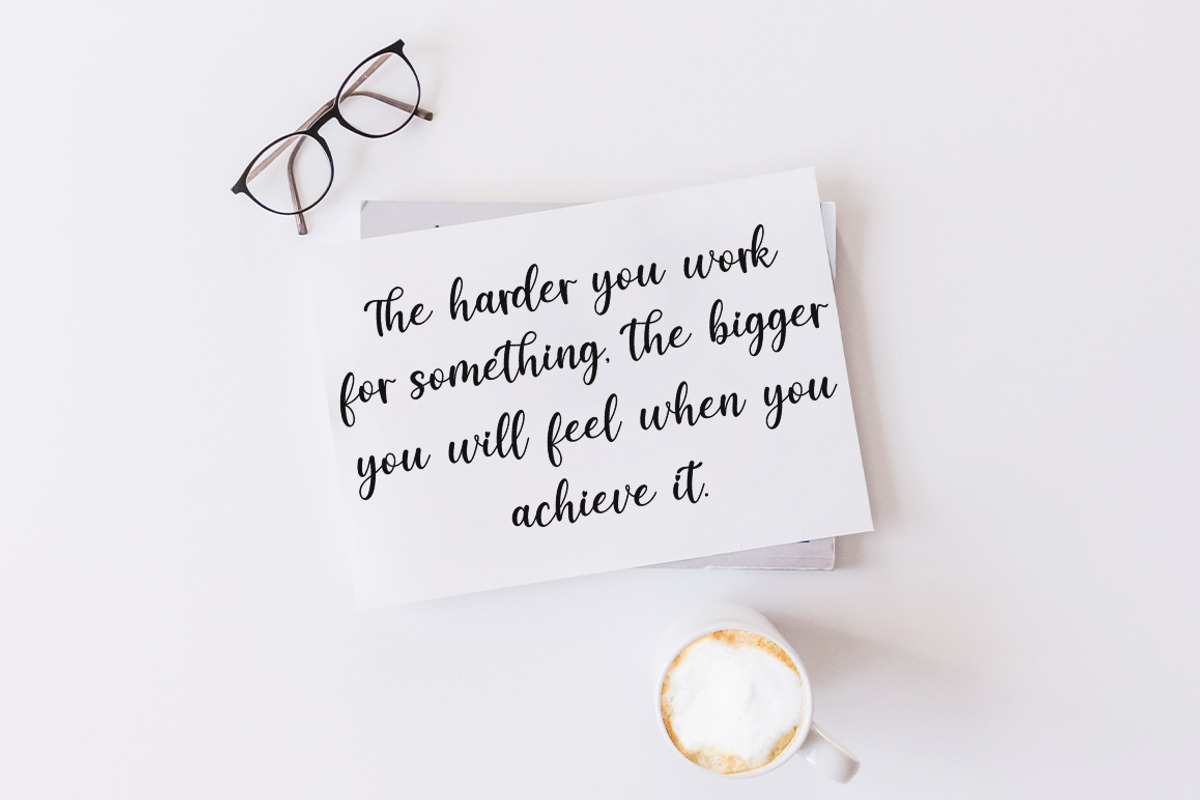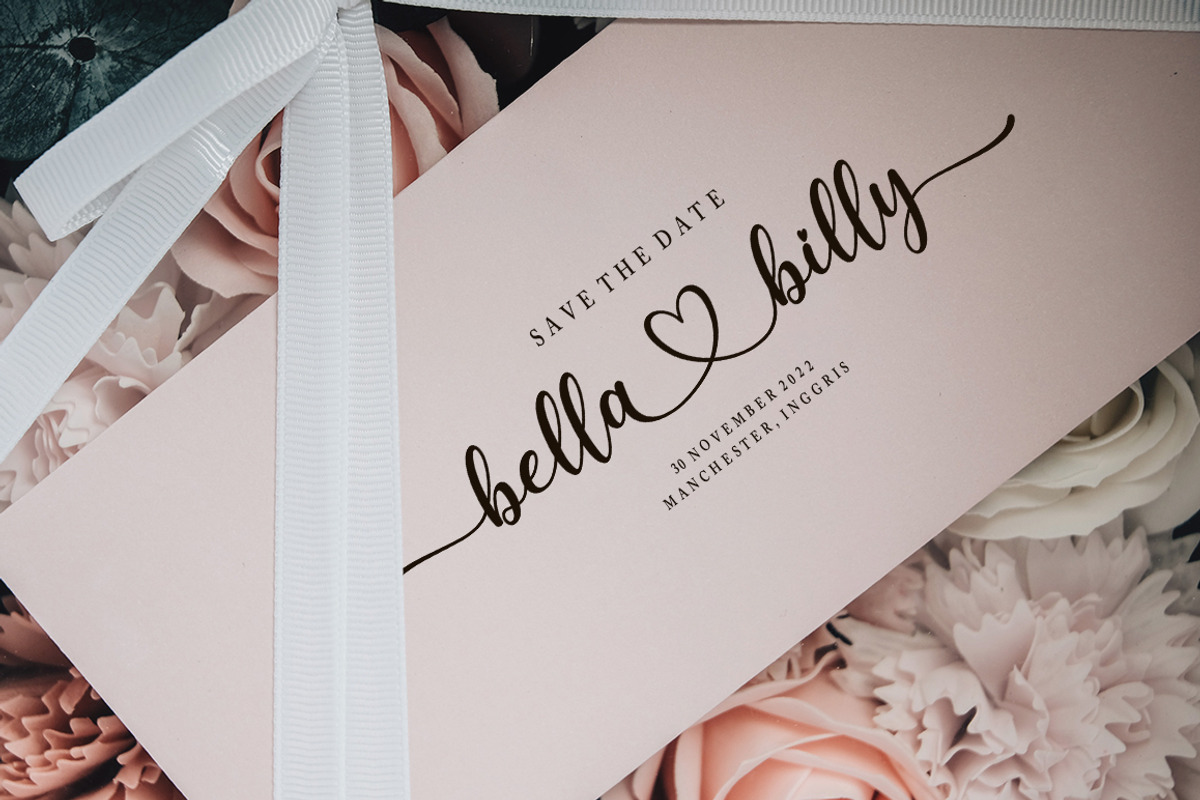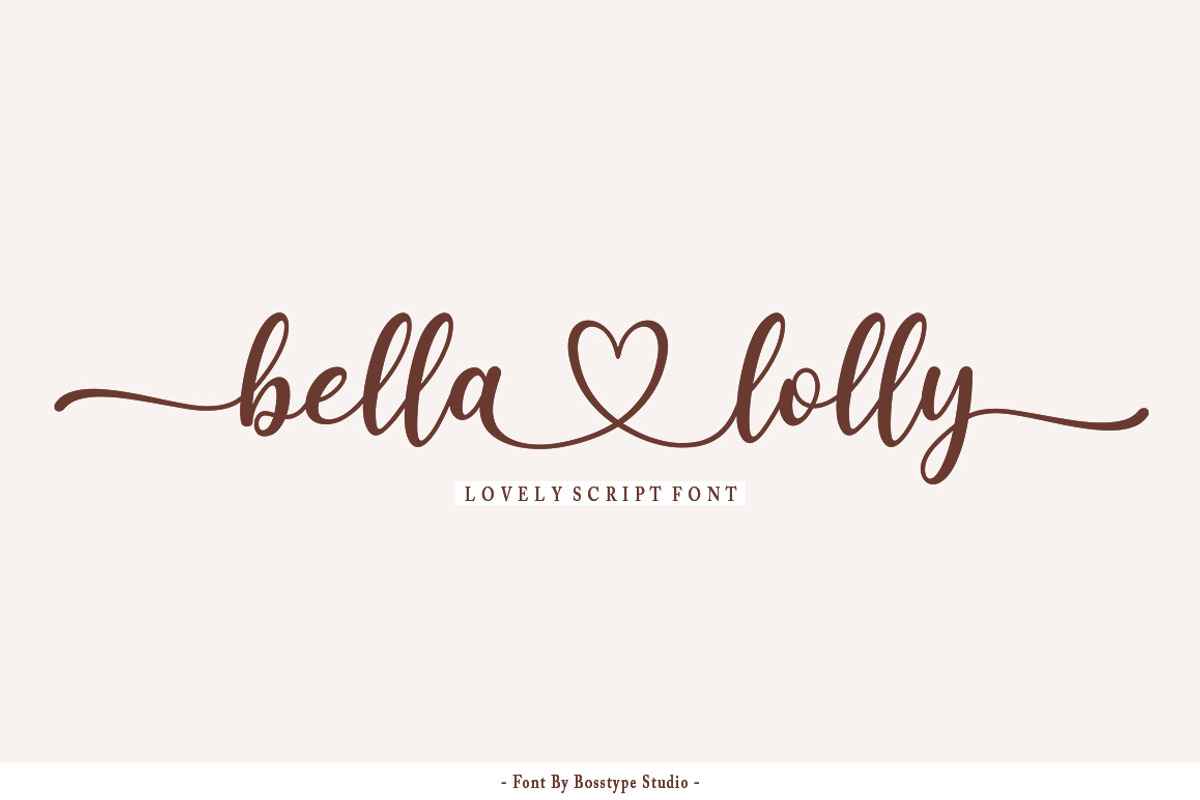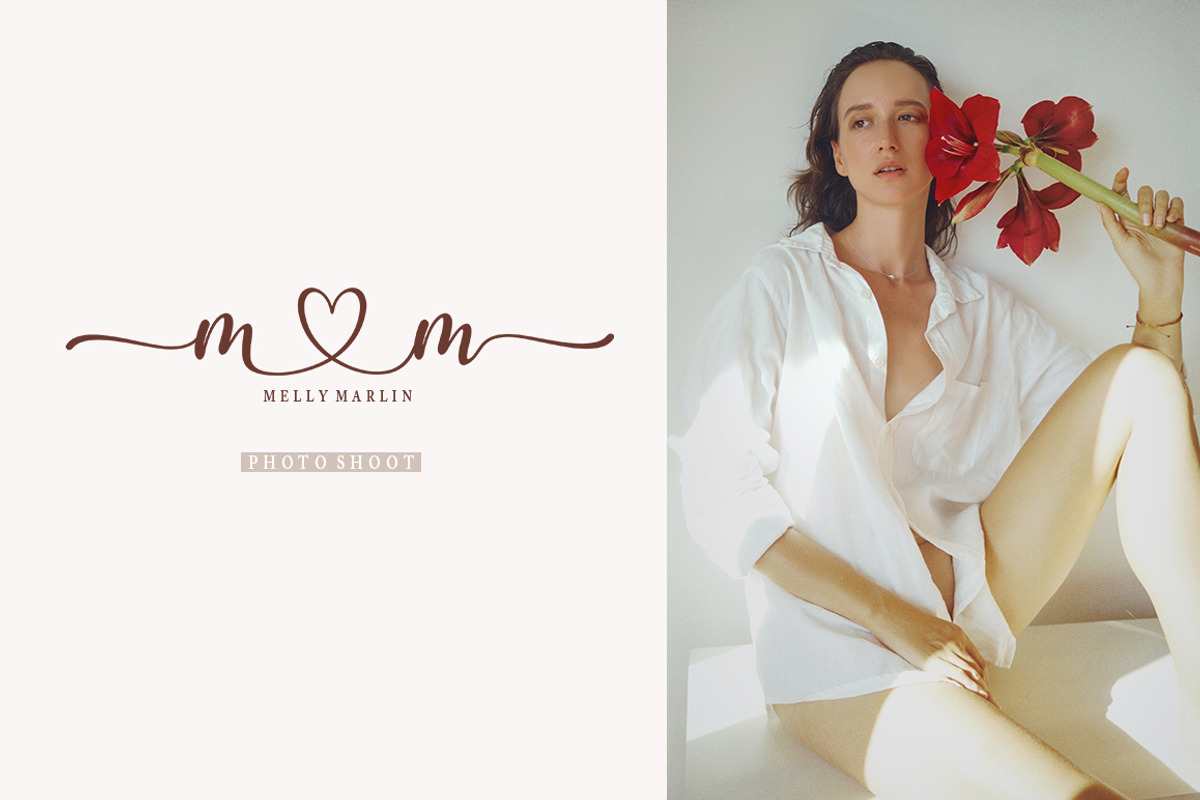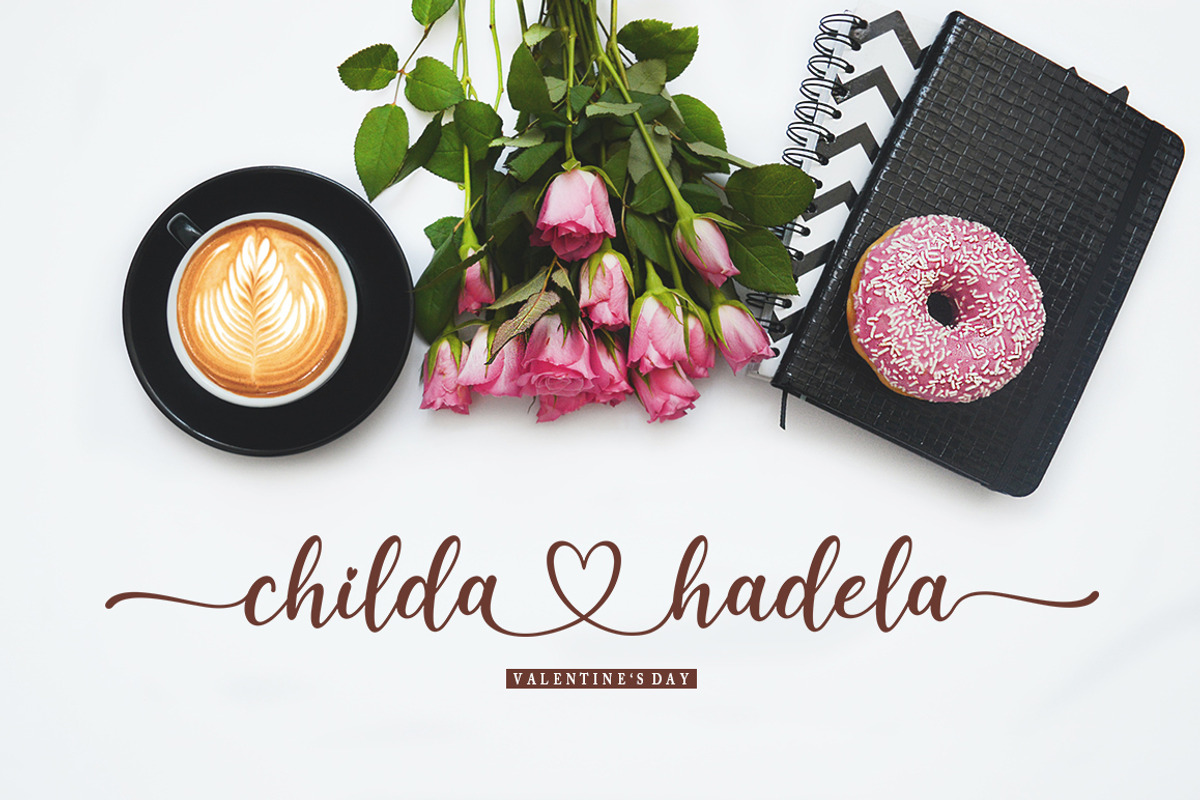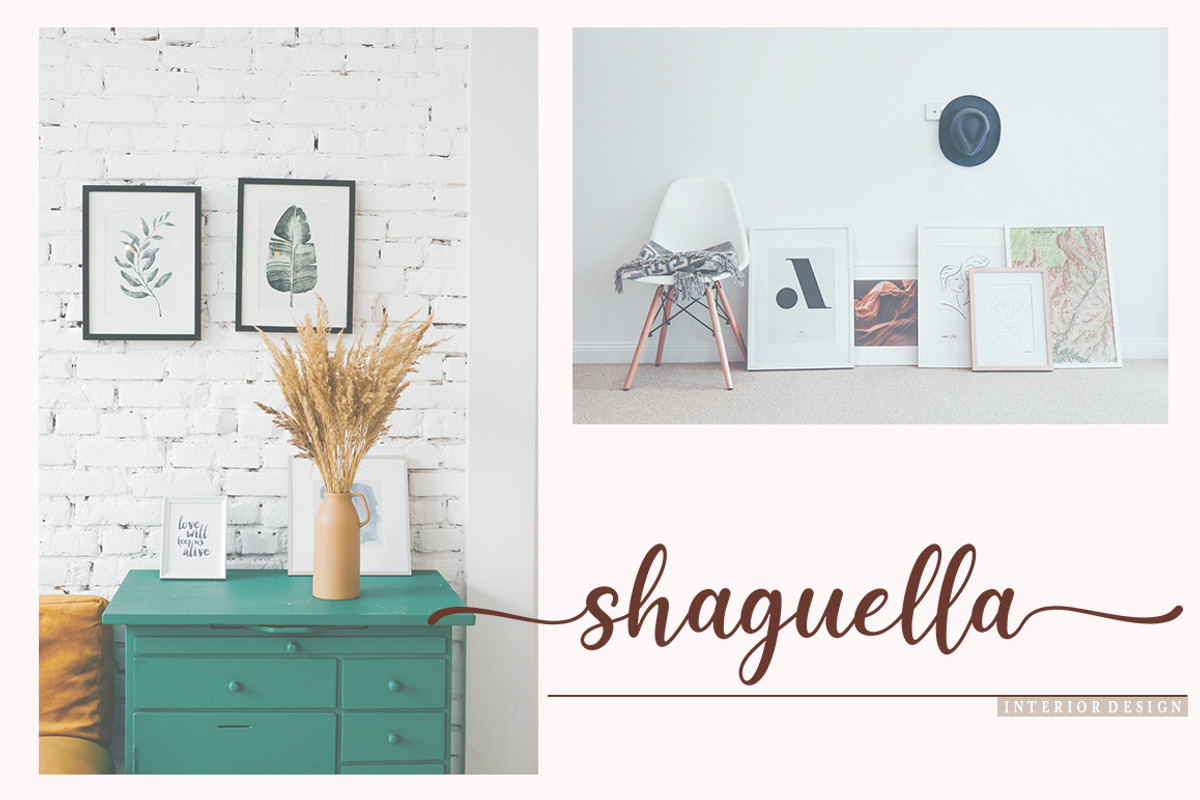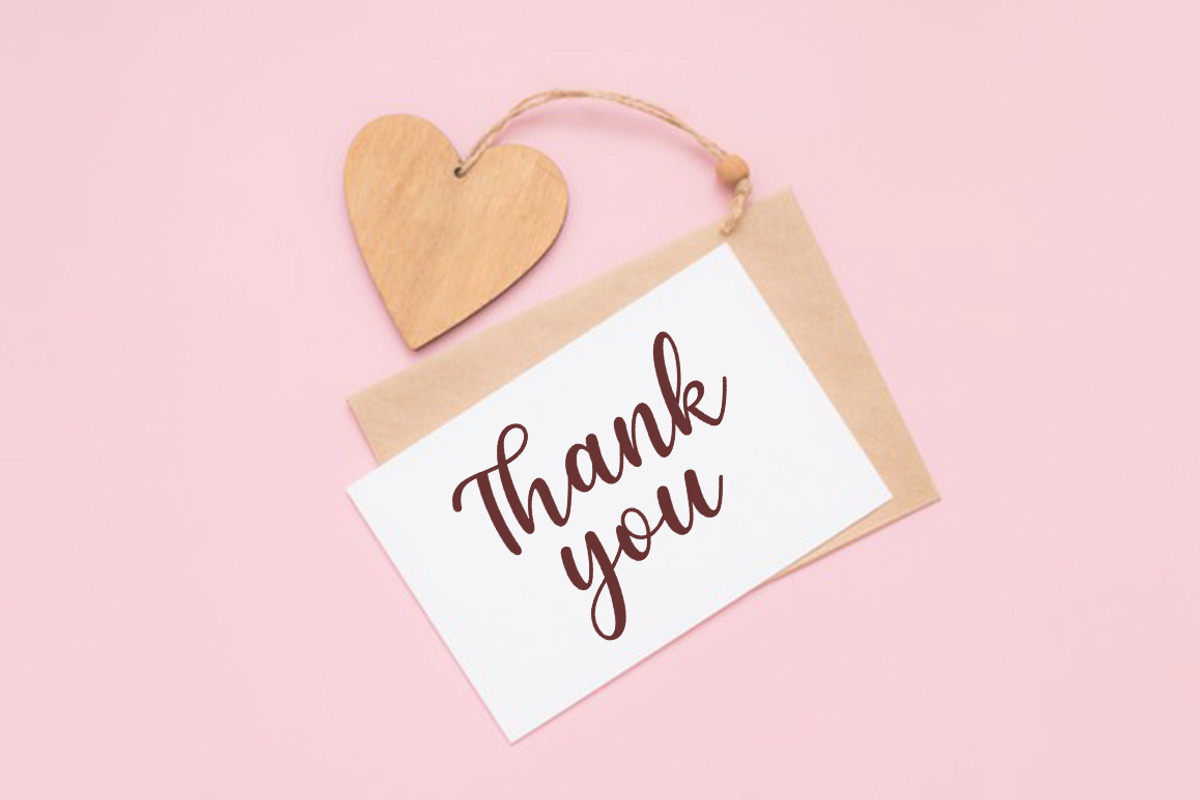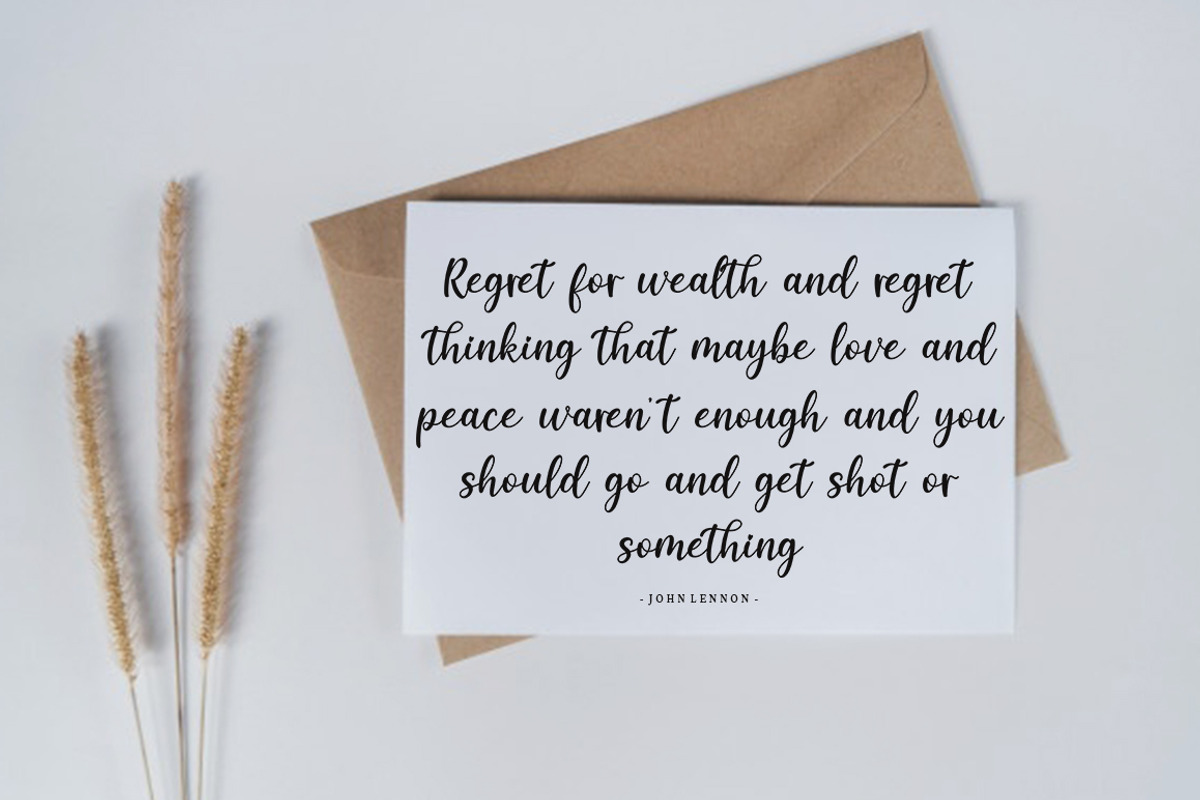
Bella Lolly
Bella Lolly Script is a beautiful modern calligraphy typeface, I hope you will be interested in this font, if you want to use it for your work. This font can be used easily and simply because there are many features in it. contains a complete set of lowercase and uppercase letters, assorted punctuation, numbers, and multilingual support. font also contains multiple ligatures and many contain alternative Style Stylistic Sets such as a heart swash alternative to combine with two words.
Bella Lolly is very suitable for market designs being developed today, this font has a stylish, trendy, natural and soft font, with this font you can take advantage of opportunities every moment is a great way to highlight the celebration of the best of the party, because this font will be an advocate for the purposes such as wedding invitations, branding, parties, graduations, birthdays, gatherings, etc.